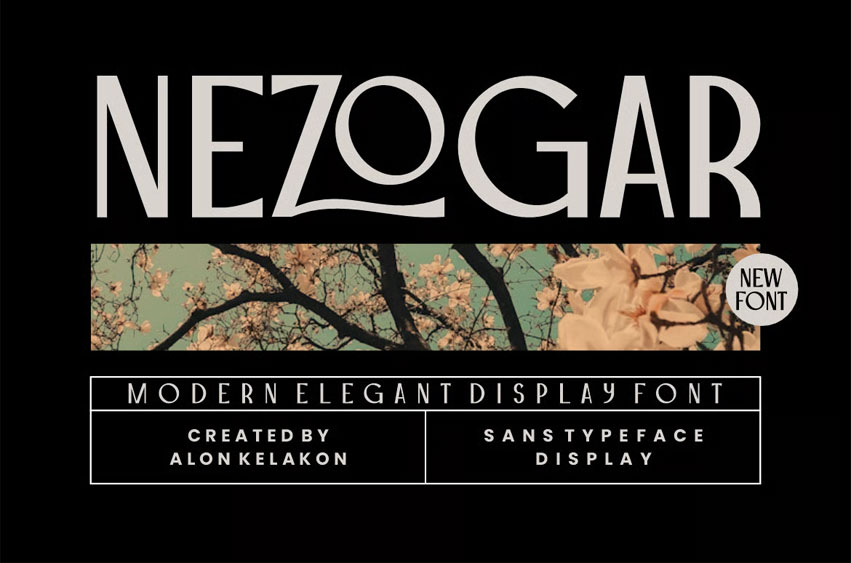
Nezogar Font Display Font is a modern and elegant Sans Serif typeface. This font is well-suited for a variety of contexts, such as print design, promotional materials, or magazine layouts.
• Branding and corporate identity (Luxury brands, fashion, high-end products)
• Logo design
• Magazines and editorial layouts
• Marketing and advertising (Brochures, posters, social media graphics)
• Wedding invitations and event stationery
• Product packaging design
• Websites and applications
• And much more!